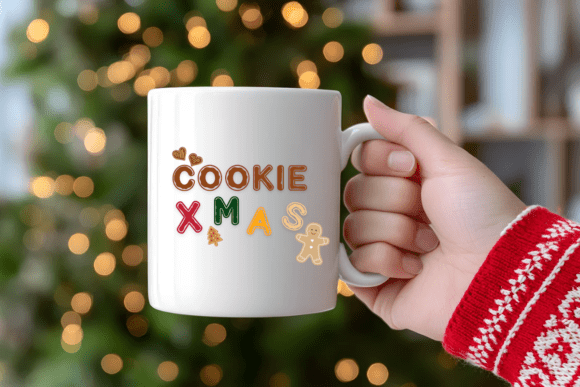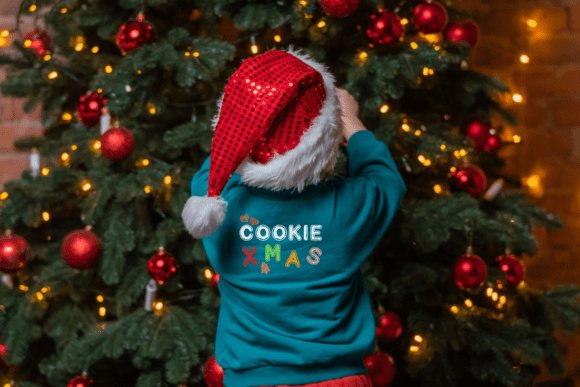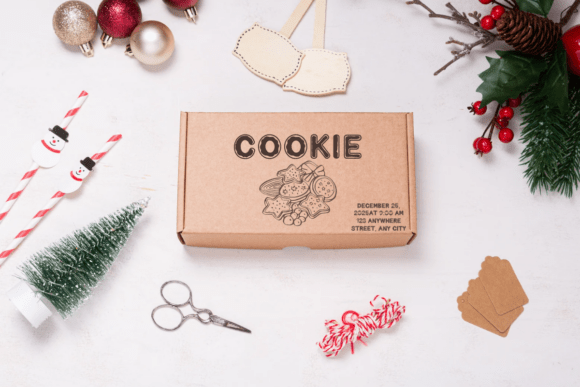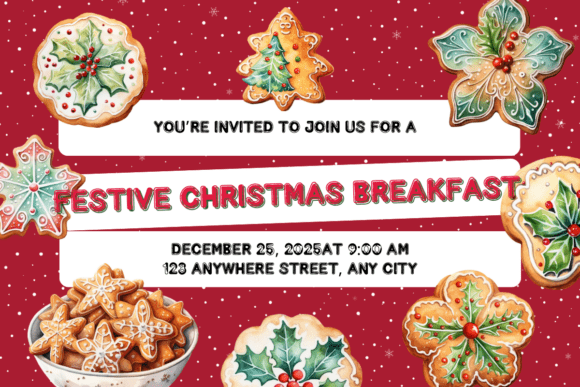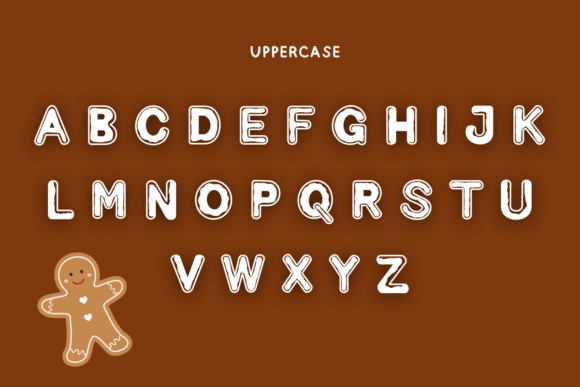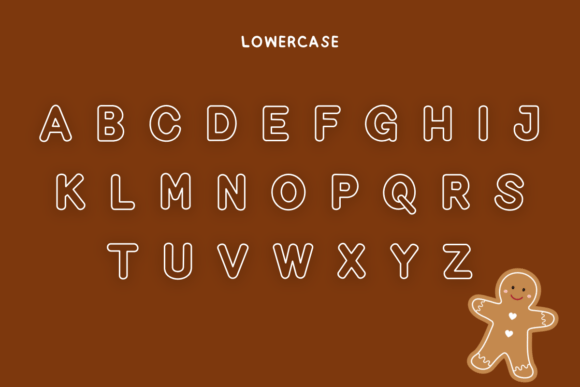
Introduction to Cookie Xmas Font
Immerse yourself in the merry spirit of the holiday season with the whimsical charm of the Cookie Xmas font.
This decorative font stands as an ideal choice for penning down cherished memories in your diary, jotting quick reminders, or fostering warmth through personalized greeting cards But the versatility of Cookie Xmas doesnโt end just there.
Key Features of Cookie Xmas Font
Why Choose Cookie Xmas Font?
Cookie Xmas Font offers exceptional quality and versatility, making it a valuable addition to your design toolkit. Whether you’re creating for personal projects or commercial use, Cookie Xmas Font delivers professional results.